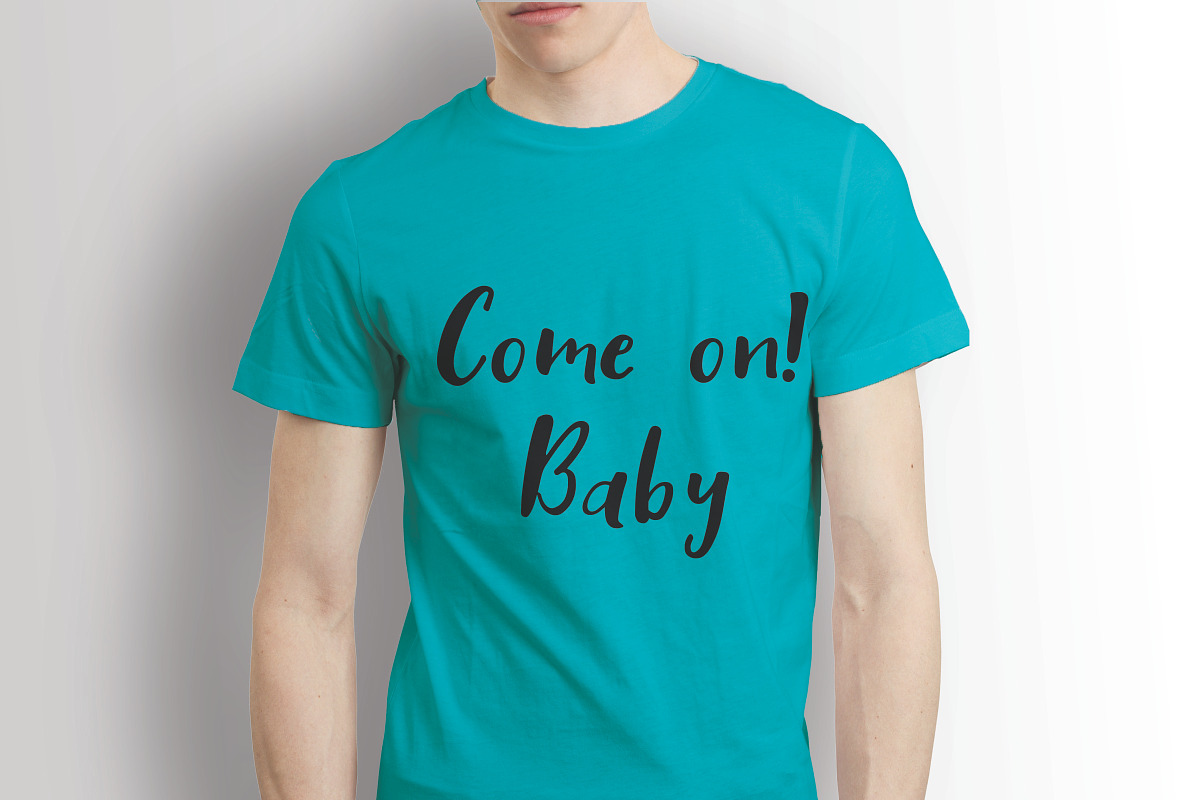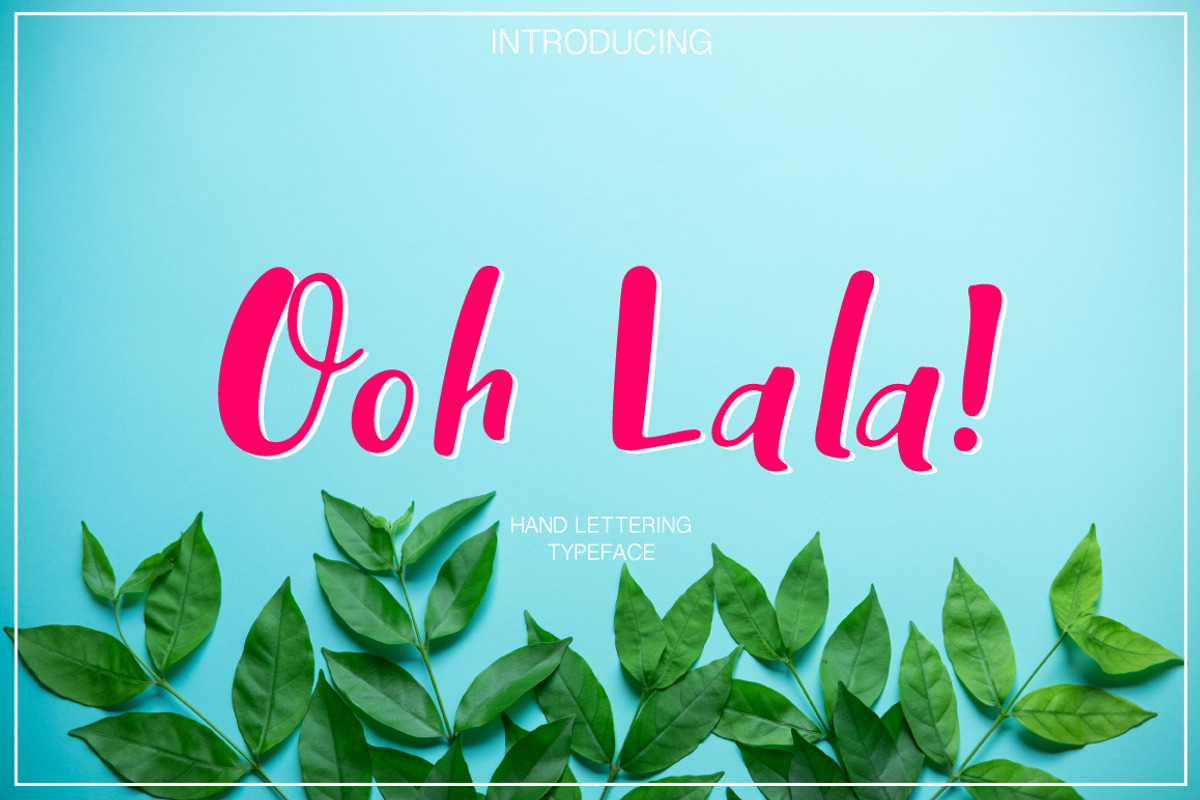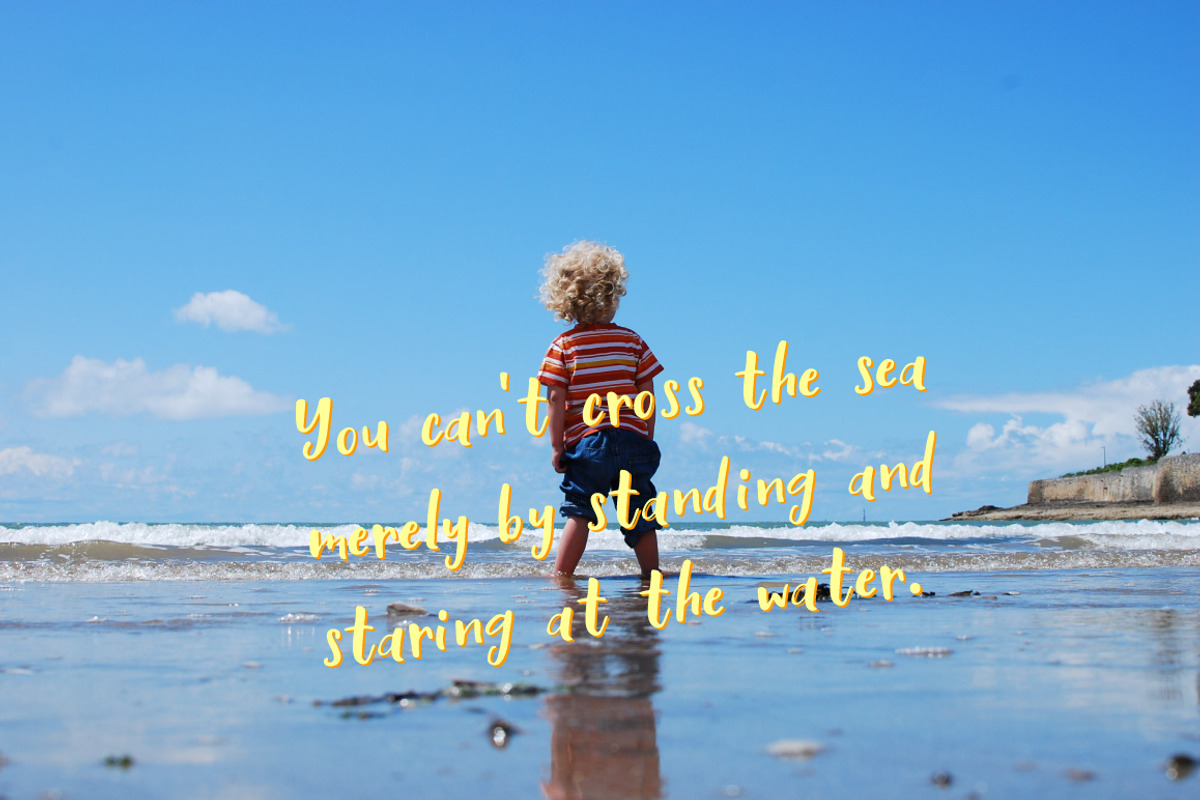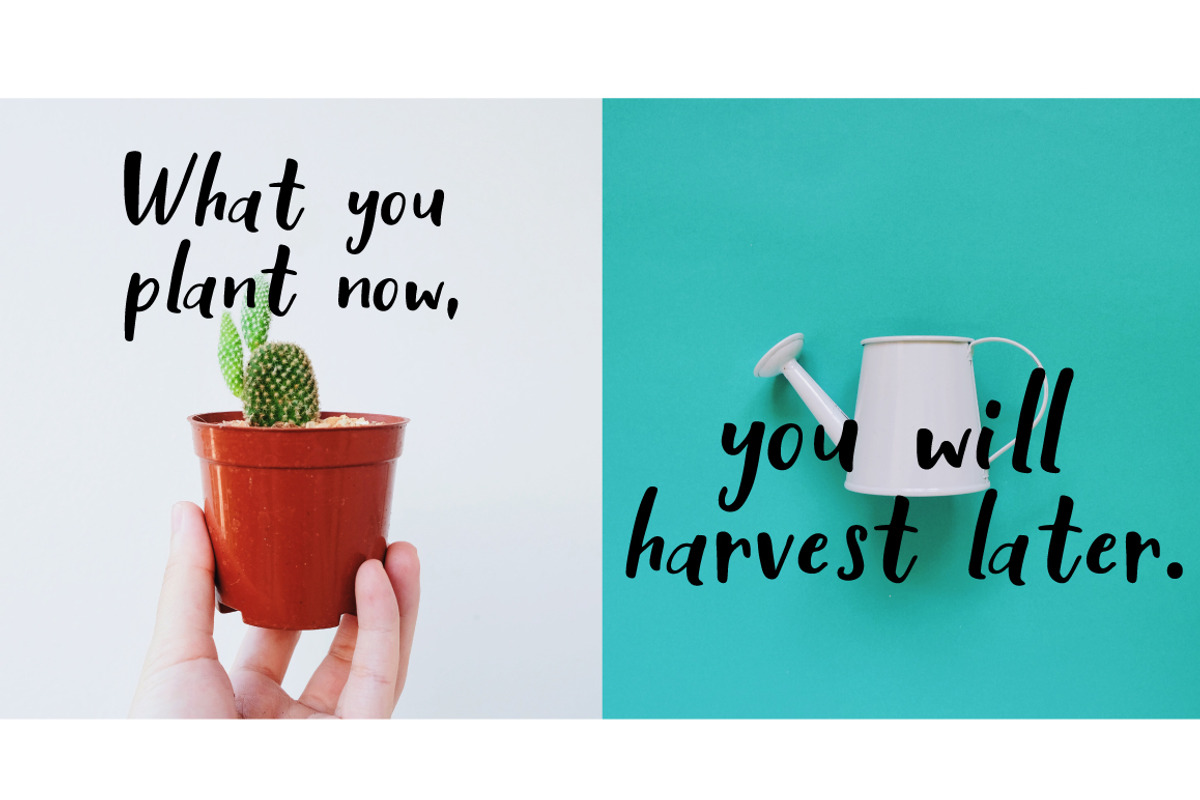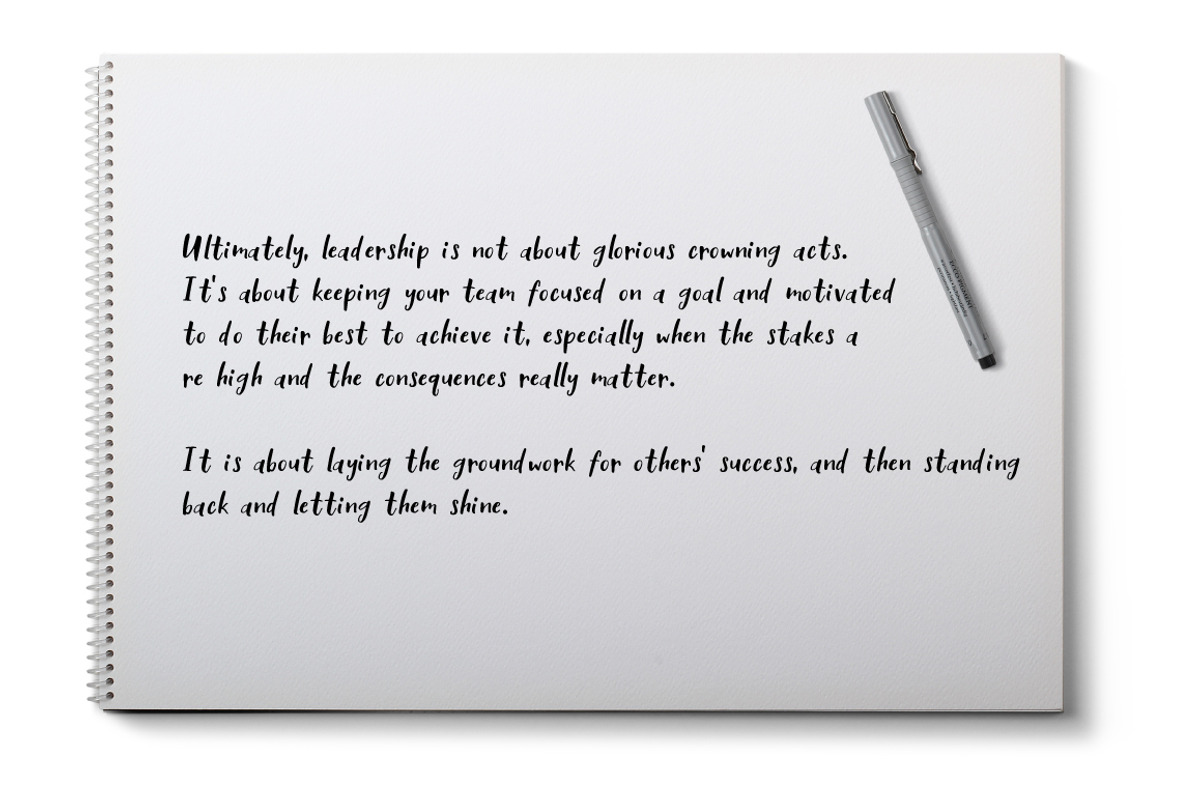
Ooh Lala | Hand Lettering font
This font are perfect for poster or your blog. Also with their help, you can create a logo or beautiful frame for your home. Or just use for your small business, book covers, stationery, marketing, magazines and more.